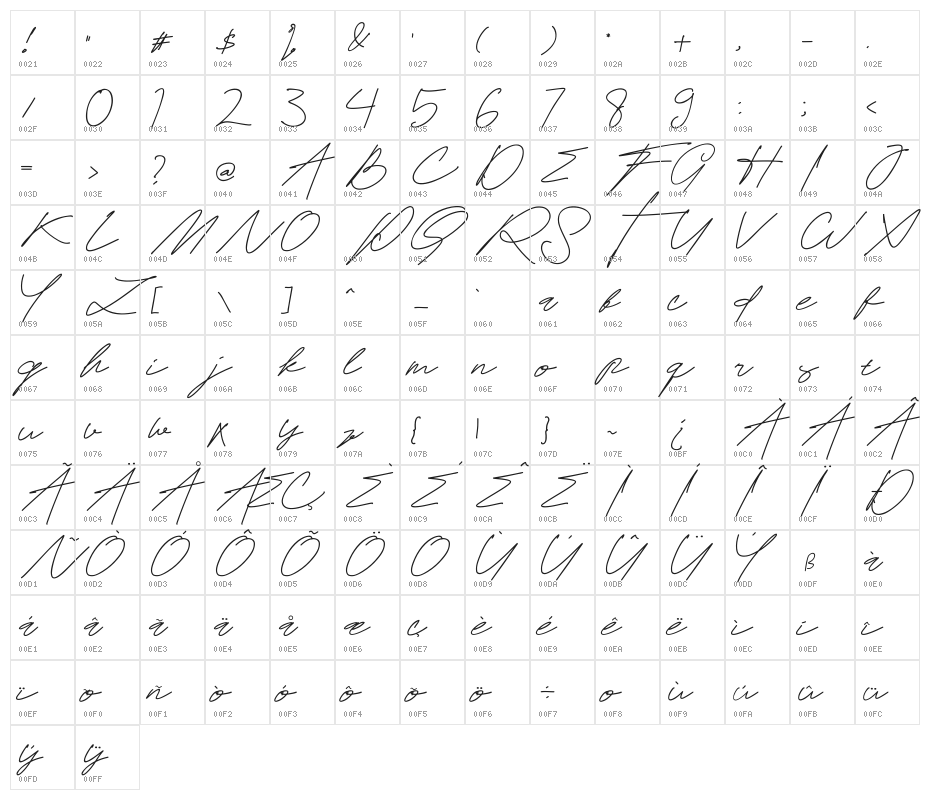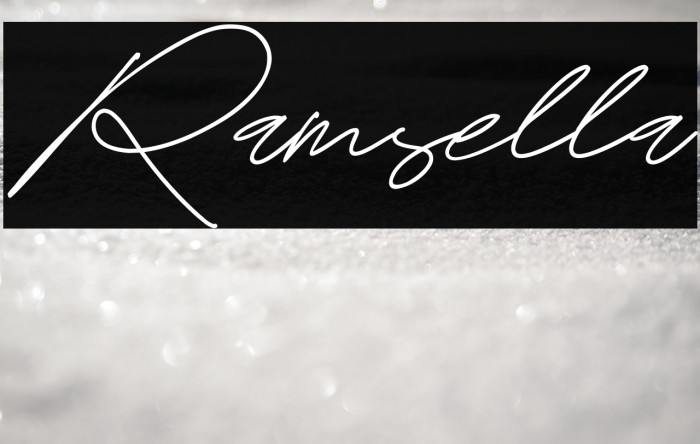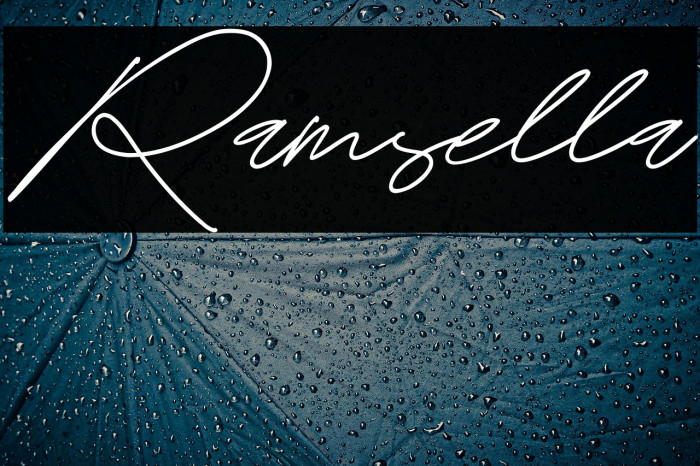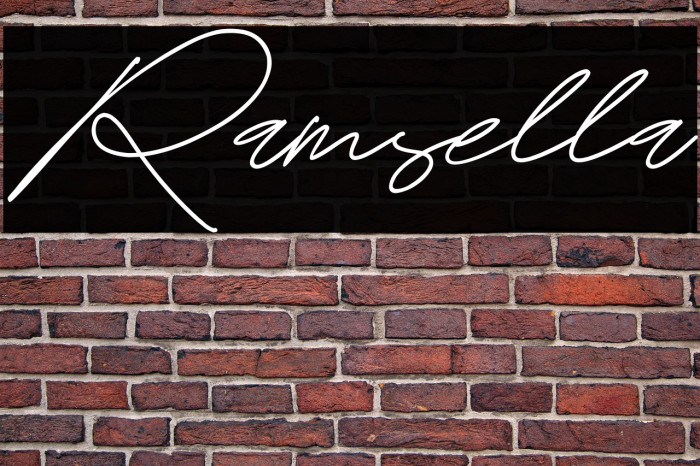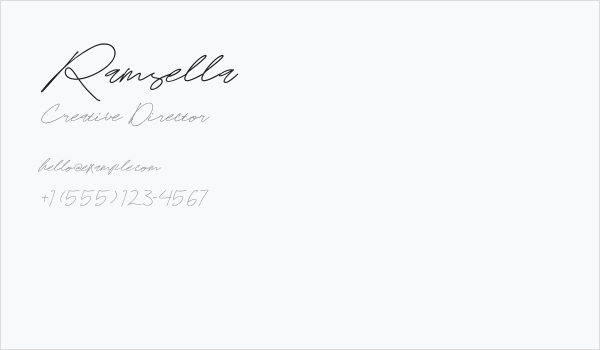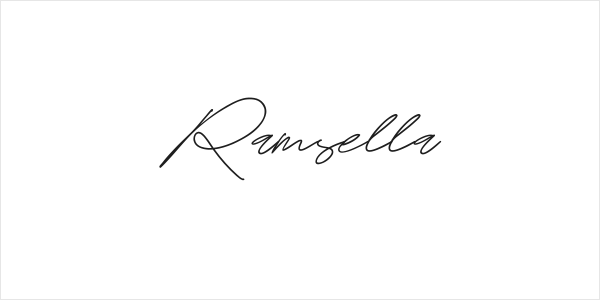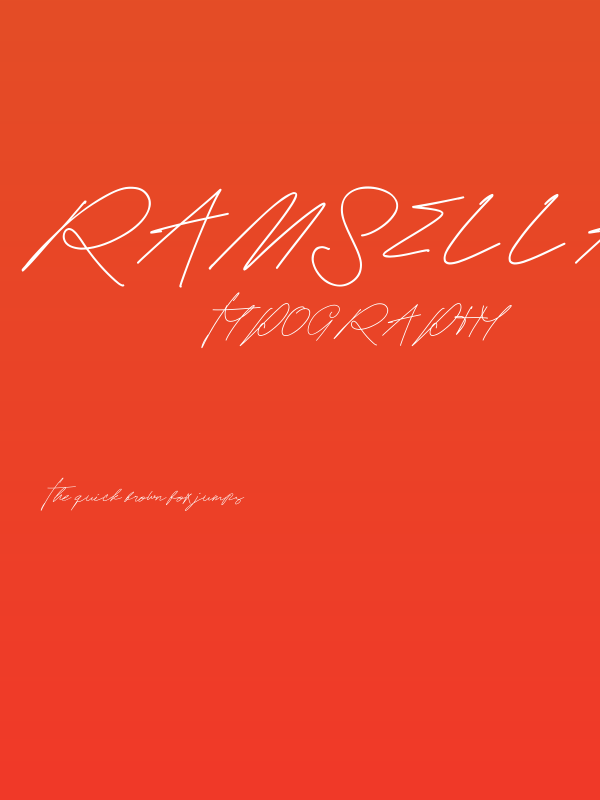
Ramsella Font
Ramsella Description
This font features a flowing, cursive style that mimics natural handwriting with a modern twist. The uppercase letters are elegantly elongated, while the lowercase letters maintain a consistent fluidity, creating a harmonious balance. The numerals are clear and legible, maintaining the cursive theme without sacrificing readability. Special characters are thoughtfully designed to blend seamlessly with the alphabet, ensuring a cohesive look across all text. The strokes are smooth and continuous, giving the font a sophisticated yet approachable feel. This font is ideal for projects that require a personal touch, such as invitations, greeting cards, or branding materials that aim to convey elegance and warmth.
| Proposed Projects | Ideal for wedding invitations, personal branding, greeting cards, and elegant stationery. |